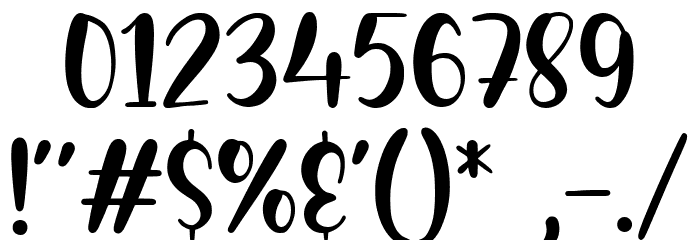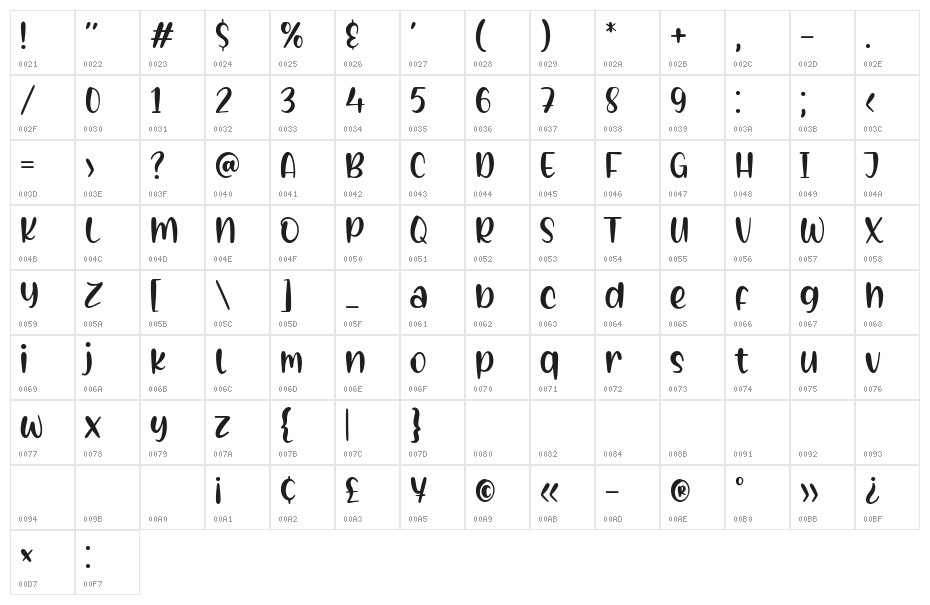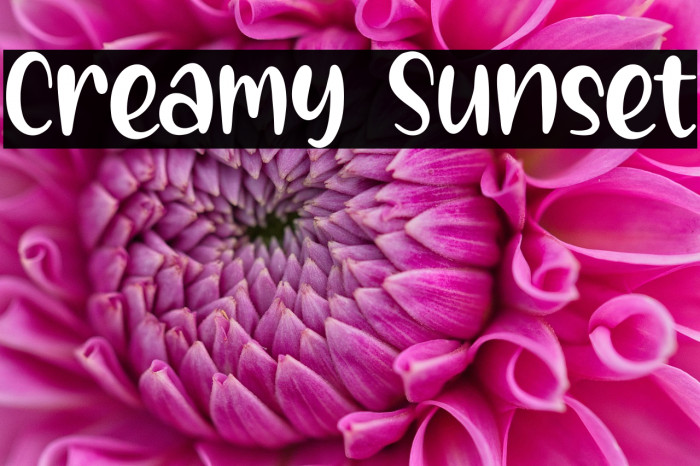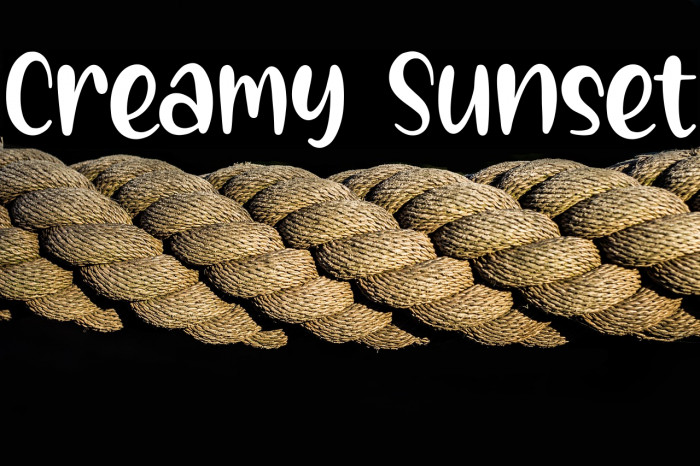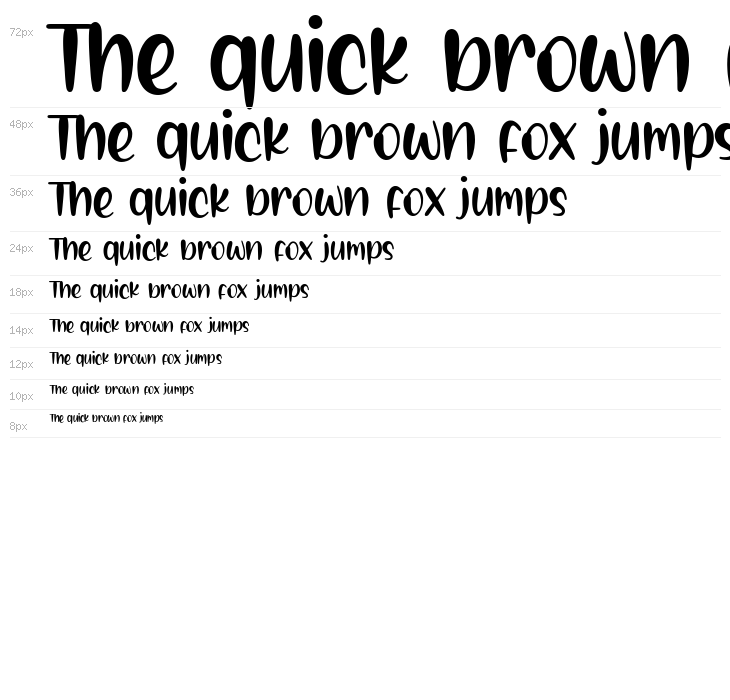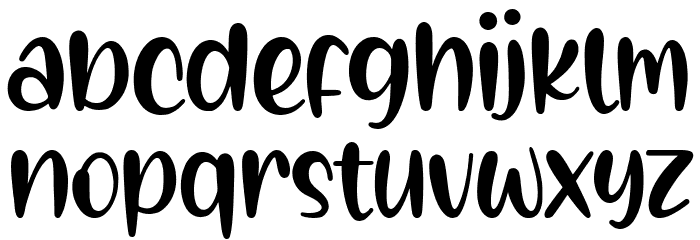
Creamy Sunset Font
Creamy Sunset Description
This font features a playful and bold handwritten style, characterized by smooth, rounded edges and a flowing script-like appearance. The letters are slightly slanted, giving a dynamic and lively feel. Uppercase and lowercase letters maintain a consistent style, with a slight variation in size and shape that adds to the casual aesthetic. The numerals and special characters are designed to match the overall playful theme, making them suitable for creative and informal projects. The font's thick strokes and rounded forms create a friendly and approachable look.
| Proposed Projects | Ideal for greeting cards, playful branding, children's books, and social media graphics. |